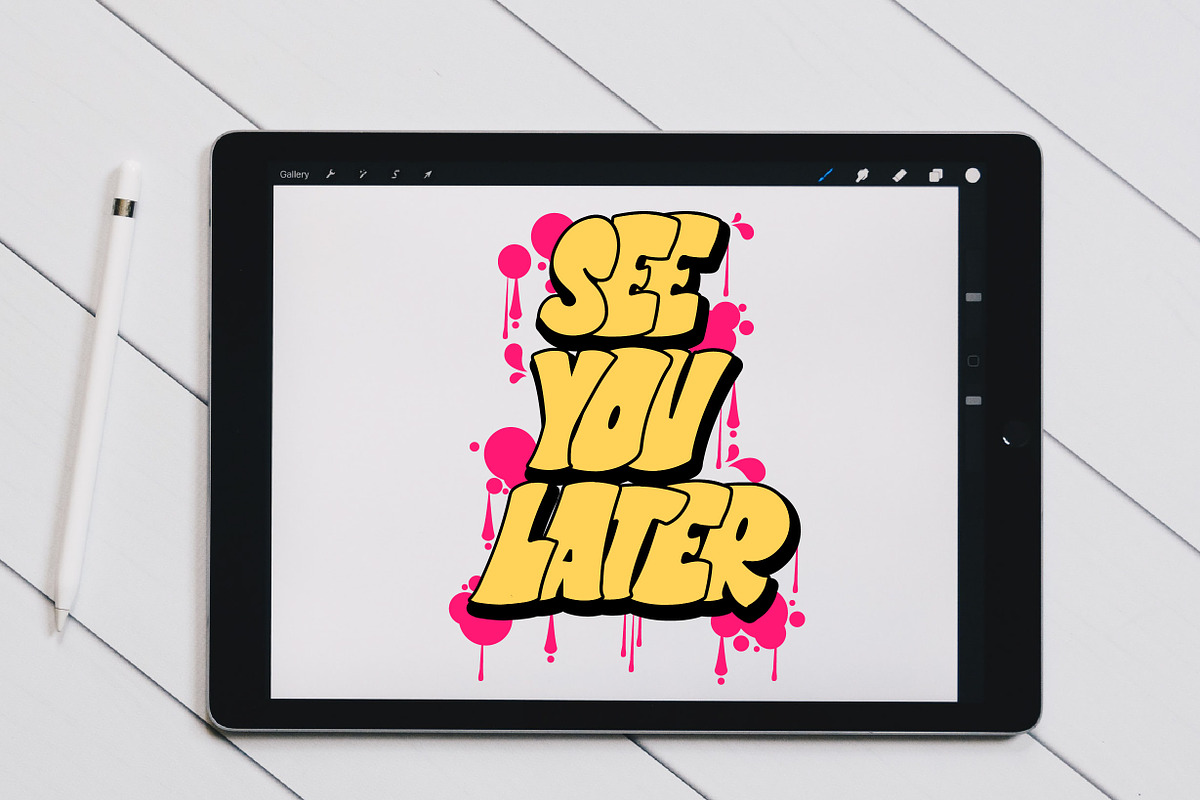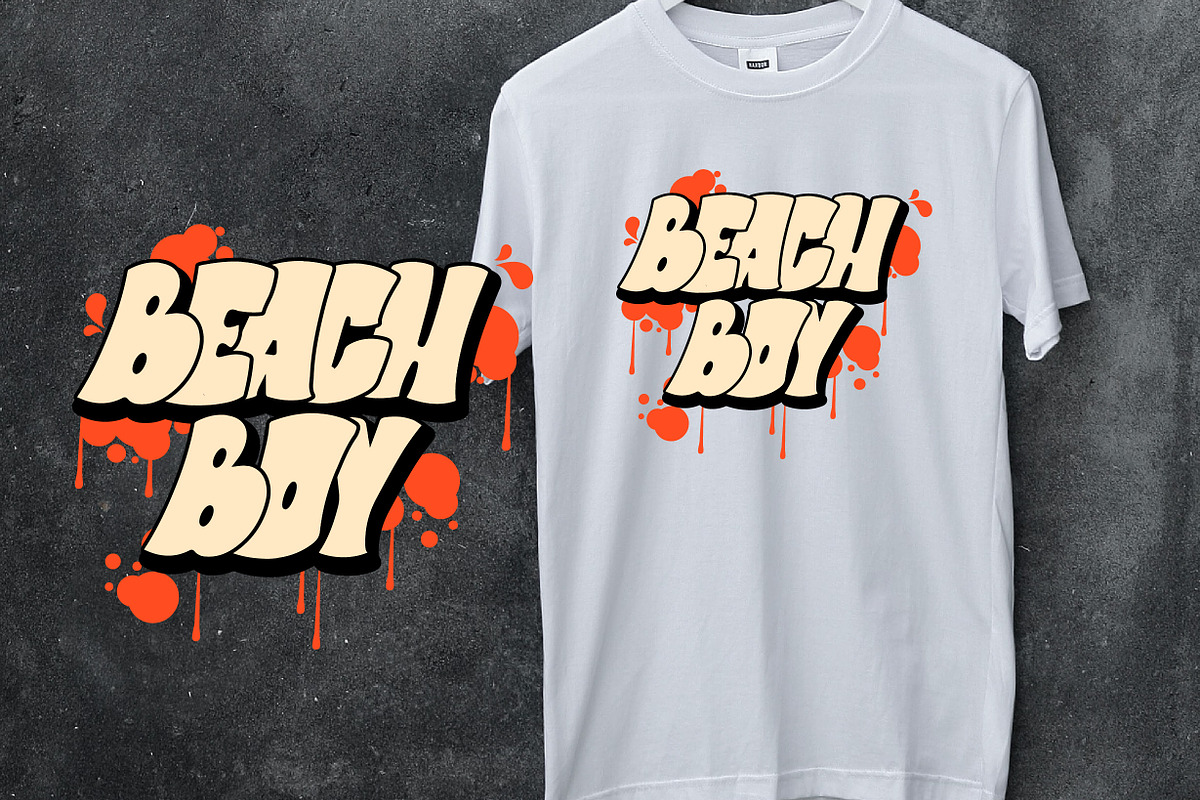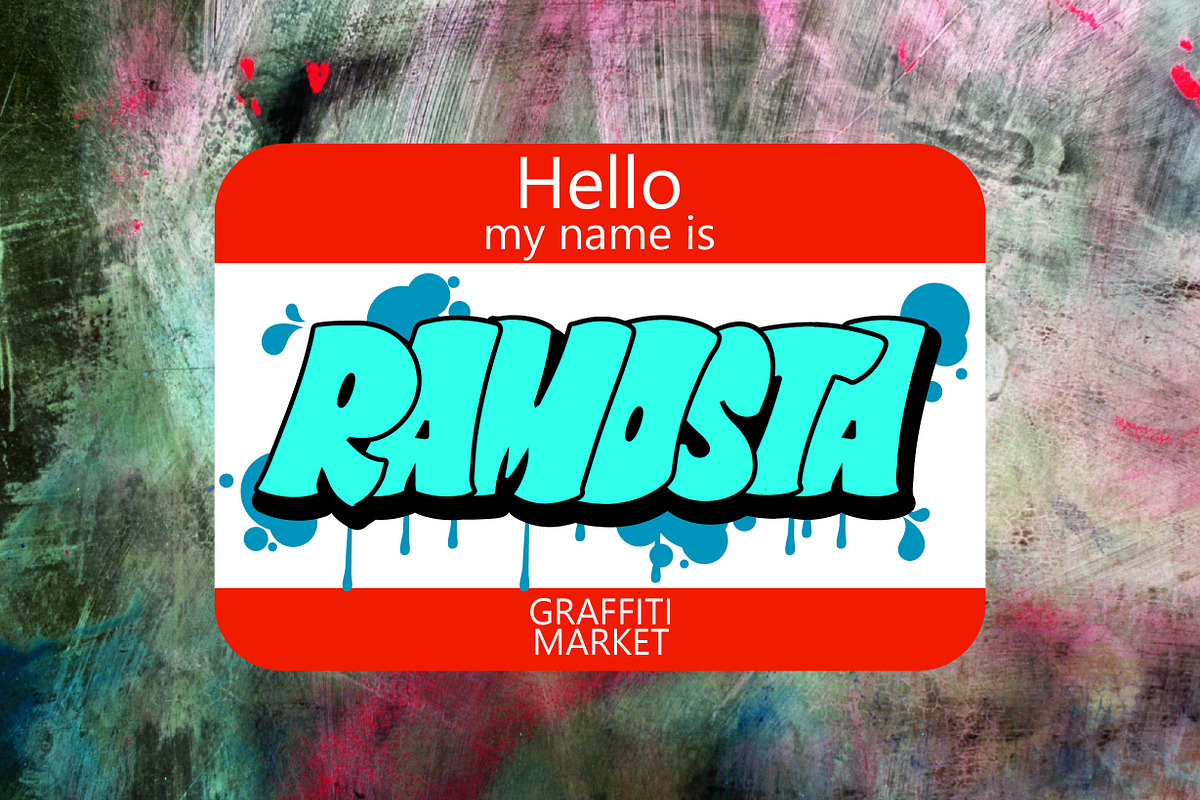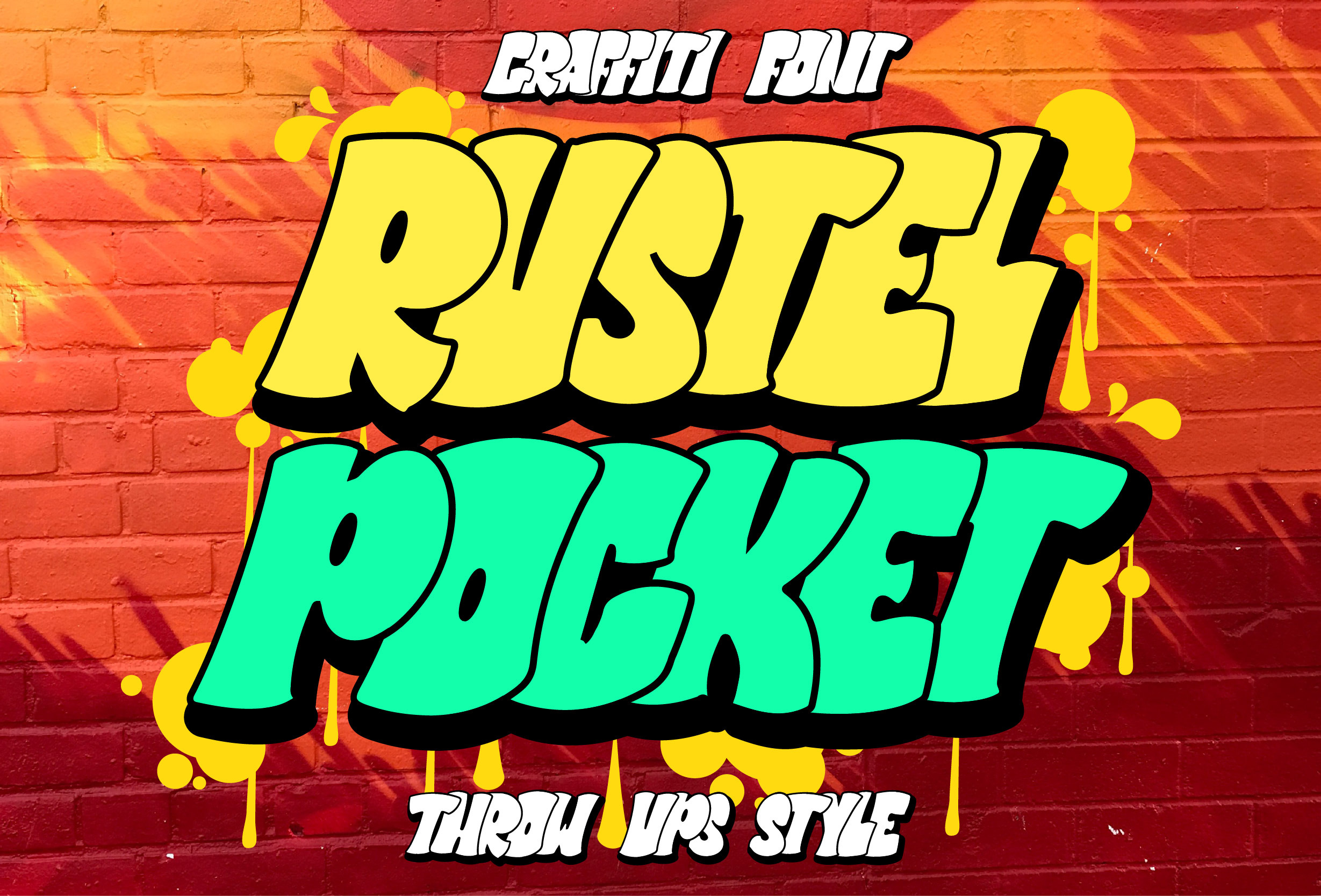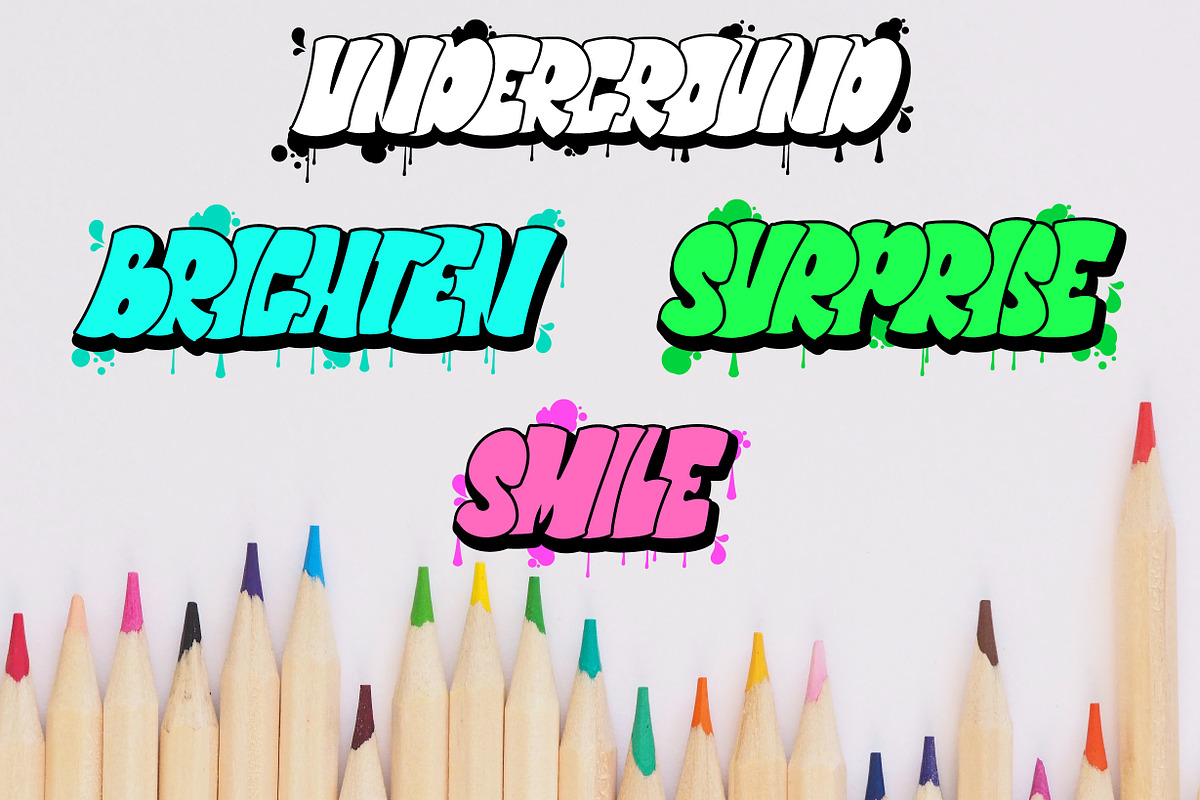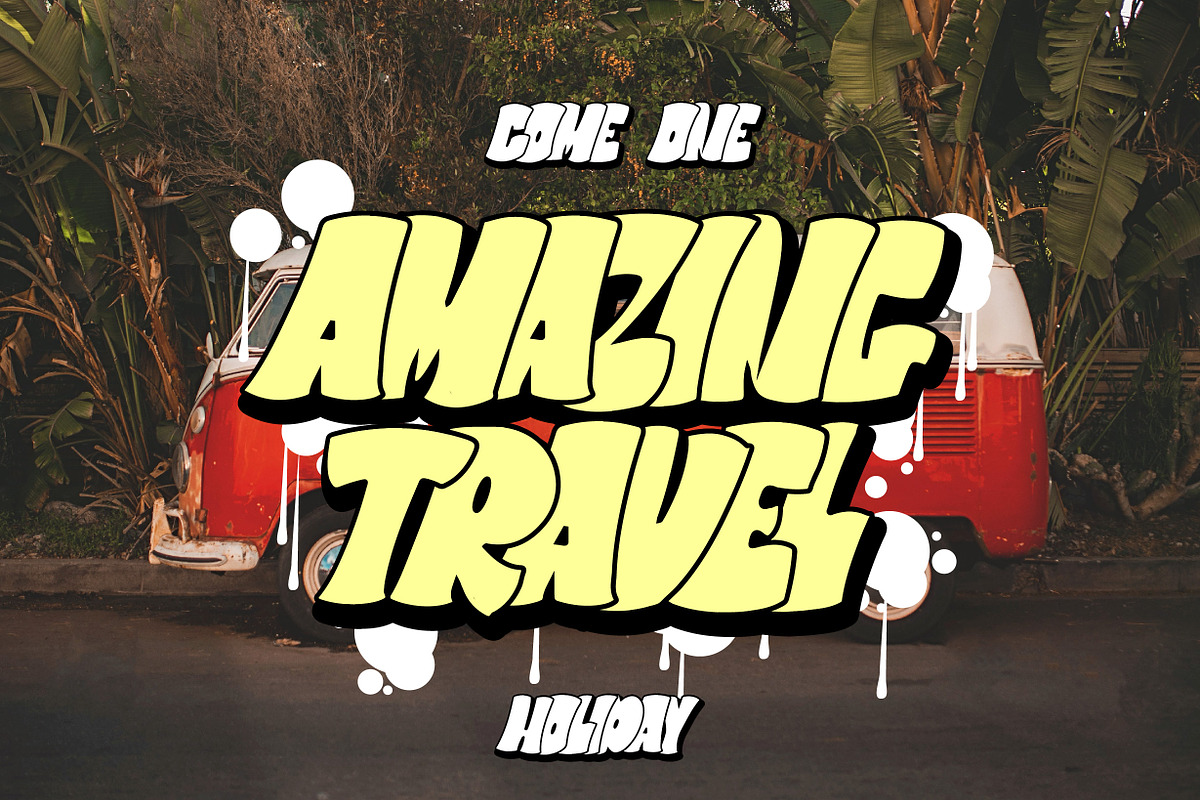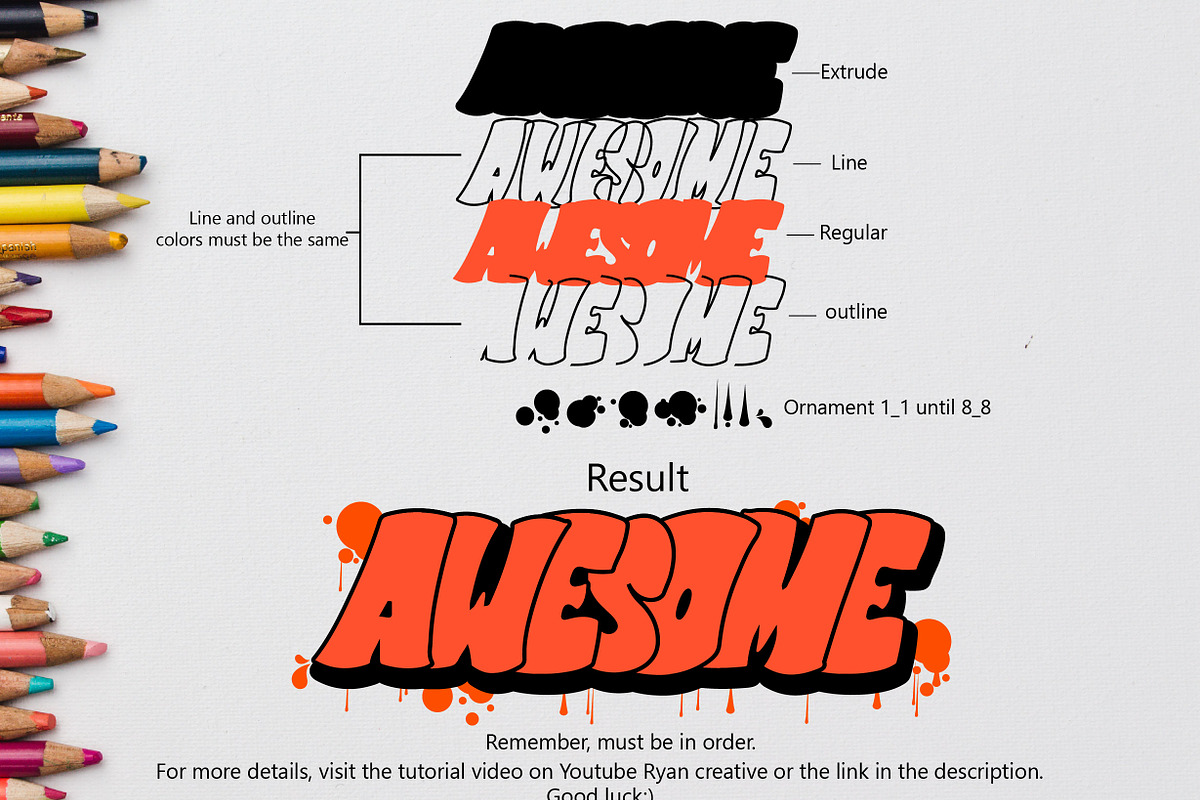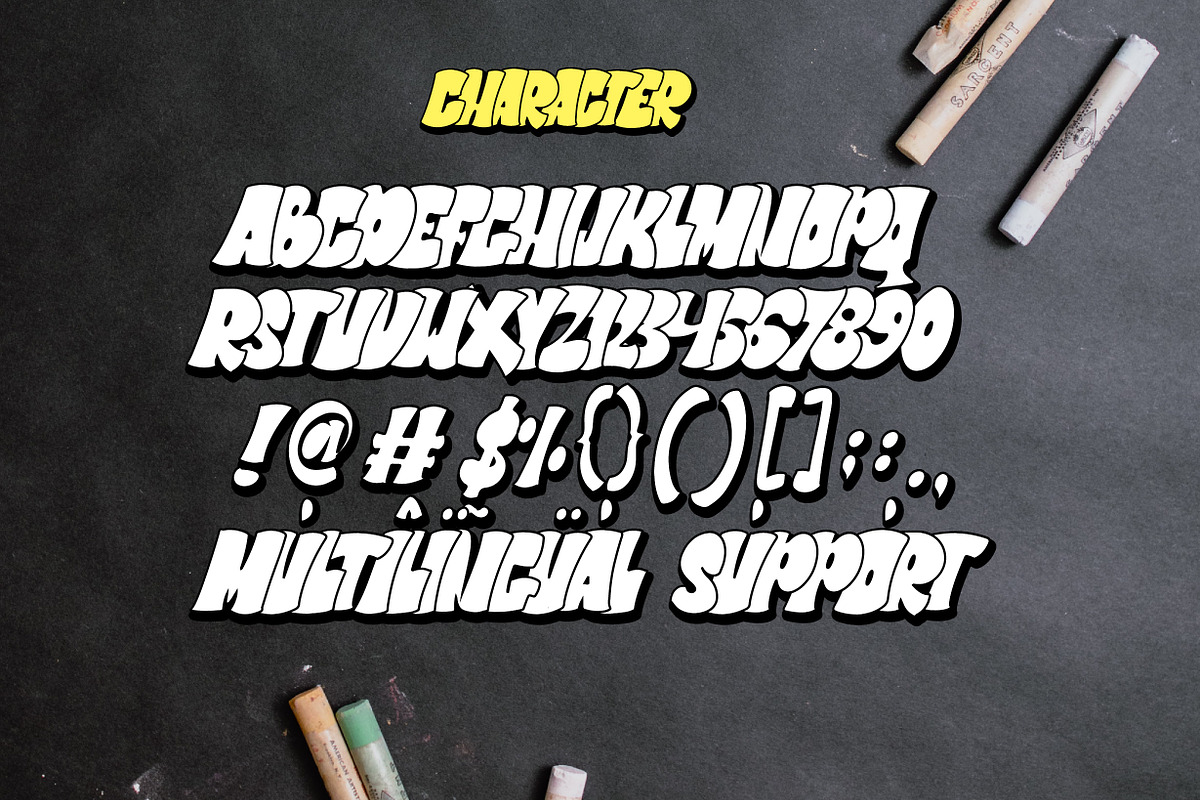
Rustel pocket - A Graffiti font
hello creatives Introducing the Rustel Pocket inspired by graffiti style with throw ups style which has a unique appearance with additional variations of extrude, line, regular and outline lines. accompanied by additional ornaments that you can customize your own style. can be applied like, t-shirt design, sticker, image style etc.
FEATURE;
-Uppercase.
-Support Foreign, Numbers and Punctuation.
-Regular, extrude, line, outline and ornament